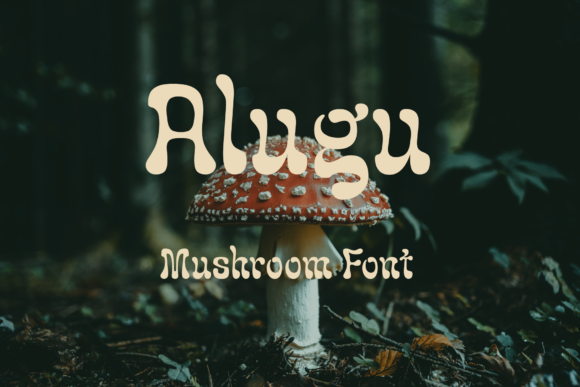
Behold Alugu, a display font that dances with creativity, a visual symphony that will transform your designs into captivating masterpieces. Step into a world where imagination reigns supreme and your creations come alive with a touch of whimsy and playfulness.
Alugu's charm lies in its quirky and uniquely crafted characters, each letter a work of art, adding a trendy and cool vibe to your designs. Its playful spirit is infectious, evoking a sense of joy and wonder that will leave a lasting impression on your audience.
Unleash your creativity and let Alugu take center stage in your designs. Its versatility knows no bounds, making it the perfect choice for a wide range of projects. Craft eye-catching logos that demand attention, design stunning posters that ignite the imagination, or create captivating social media graphics that stand out from the crowd.
With Alugu as your creative companion, you'll discover new possibilities and elevate your designs to new heights. Embrace the uniqueness of this display font and let your imagination soar. Dive into the world of Alugu and unlock a treasure chest of creative wonders.
Stand out from the mundane and embrace the extraordinary with Alugu, a display font that will redefine your creative journey. Its enchanting aura will cast a spell on your audience, leaving them captivated and craving more.